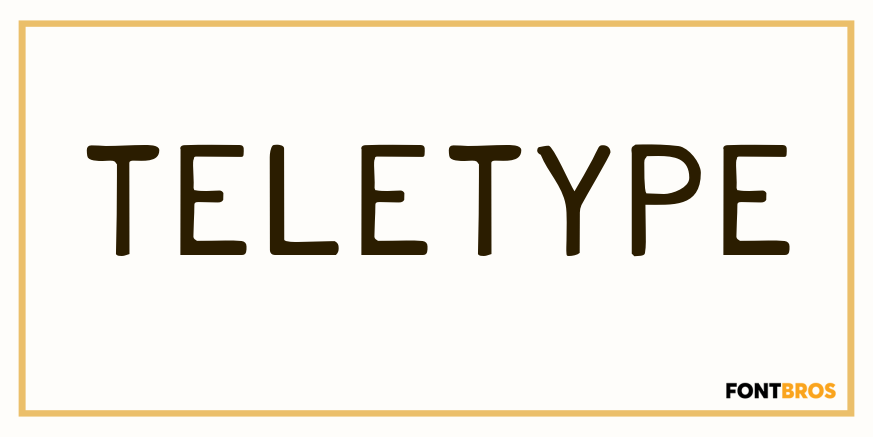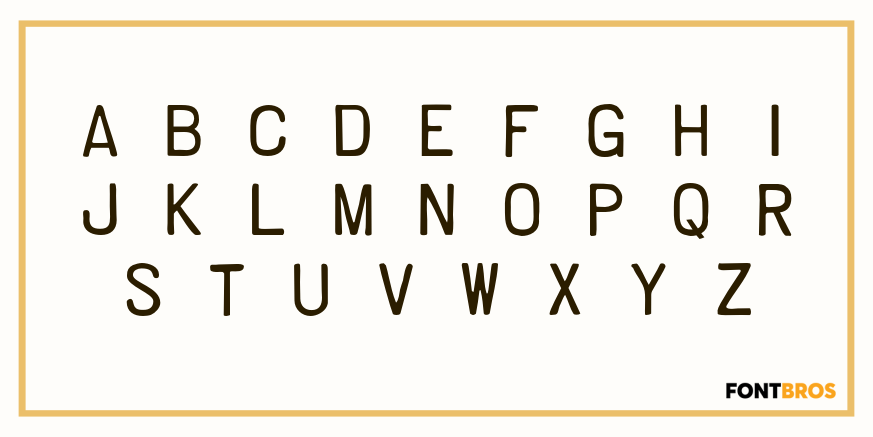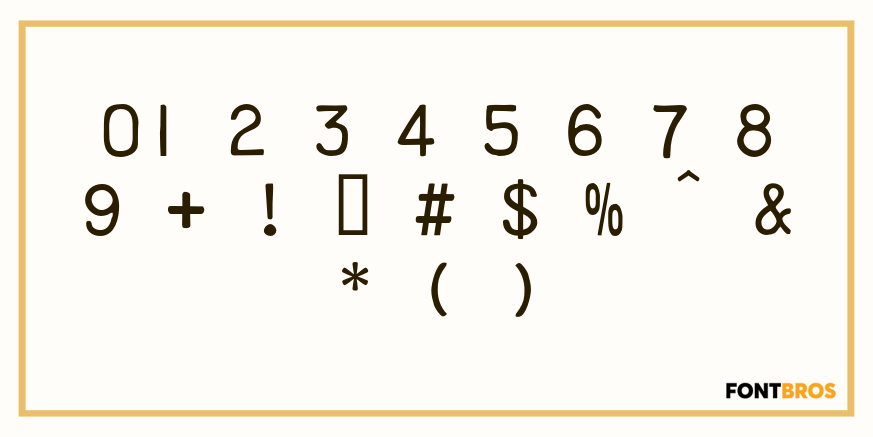
Teletype
Teletype is an all-caps display sans serif with condensed proportions and a crisp, mechanical feel. Its monoline construction, rounded terminals, and geometric influence give it a distinctly industrial, mid-century voice that feels both technical and utilitarian.
With its narrow stance and uniform stroke, it’s well suited to projects that need a functional vintage edge—think posters, packaging, branding, signage, and other display work where a teletype or typewriter-inspired look can carry the mood.
Offered by Solotype as a single Regular style, this design is a strong choice for layouts that call for a retro historical character without losing clarity or structure.